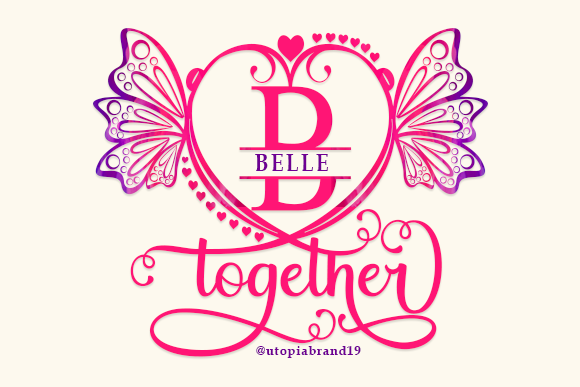
Journey into the realm of sophistication and grace with Belle Monogram Font, a decorative font that exudes elegance and charm. Its intricate ornaments and sweeping lines will capture your heart, inspiring you to create breathtaking designs that leave a lasting impression.
Born from the creative vision of utopiabrand19, Belle Monogram Font carries an authentic feel that adds a touch of timeless beauty to your projects. Its versatility knows no bounds, making it the perfect choice for a wide range of applications, from wedding invitations and stationary art to social media posts and greeting cards.
With Belle Monogram Font, you hold the key to unlocking a world of creativity. Its delicate curves and intricate details will transform your words into works of art, captivating your audience with their unique charm. Whether you're a seasoned designer or just starting your creative journey, this font will elevate your designs and make your ideas shine.
Imagine the awe-inspiring wedding invitations you can create with Belle Monogram Font. Its elegant swirls and flourishes will set the tone for your special day, adding a touch of timeless romance to every detail. Your guests will be enthralled by the beauty of your invitations, setting the stage for an unforgettable celebration.
Envision the stunning stationary art you can craft with Belle Monogram Font. Its graceful lines and delicate ornaments will add a touch of sophistication to your personal correspondence, making each letter a cherished keepsake. Your friends and family will appreciate the thoughtfulness and care you put into your words, knowing that you chose a font that truly reflects your unique style.
Picture the captivating social media posts you can design with Belle Monogram Font. Its eye-catching details and elegant flourishes will make your posts stand out from the crowd, attracting new followers and engaging your audience with your creative flair. Your social media presence will radiate with personality and charm, leaving a lasting impression on all who see it.
Embrace the joy of creating heartfelt greeting cards with Belle Monogram Font. Its playful ornaments and whimsical curves will add a touch of warmth and cheer to your messages, spreading happiness and love to those you care about. Your loved ones will feel cherished and appreciated when they receive a card adorned with this beautiful font, knowing that you took the time to choose something truly special.
With Belle Monogram Font, the possibilities are endless. Its versatility and timeless beauty make it the perfect choice for any project that demands a touch of elegance and charm. Unveil your creativity, let your imagination soar, and experience the joy of creating designs that captivate and inspire.